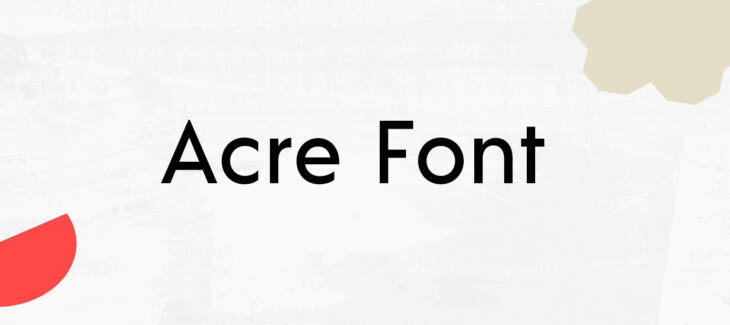
Today we are glad to share a new typeface that is beautifully handwritten and stylish typeface named Acre Font. This stylish and amazing typeface is written by a designer who has already participated in creating many amazing and famous typefaces and this font is also one of them named Jonathan Ball.
This typeface is manufactured with a family of its own. Each weight contains both uppercase and lowercase alphabets including numbers and symbols with special characters that increase the demand and usage of this font style. Each style can support up to many languages.
This font is very identical to madras font through our research. So, this font is also using in replacement to this font. This font texture has many ligatures and stylish sets that catch the interest of many designers. This font is available in two formats OTF and TTF files that are easily available on online web sources.
Who Used Acre Font?
Many of the users and designers are using typefaces in their unique designs and projects. This texture contains bold and prominent font styles. So, it can become very useful for creating amazing designs and projects. This typeface is also using for heading purposes in video games and websites.
Many YouTubers are also using these bold textures styles for heading purposes and creating thumbnails for their YouTube channels and for their websites also.
With its unique bold and readable texture, it can also use to create invitations cards and labeling the products. This font is also paired with the code pro font. With its heavyweights, designers can also use this typeface for creating banners and broacher.
Acre Font Family Appearance
| Designer | Jonathan Ball |
| Category | Sans-Serif |
Family of Acre Font
- Acre Regular
- Acre ExtraLight
- Acre Light
- Acre Book
- Acre Medium